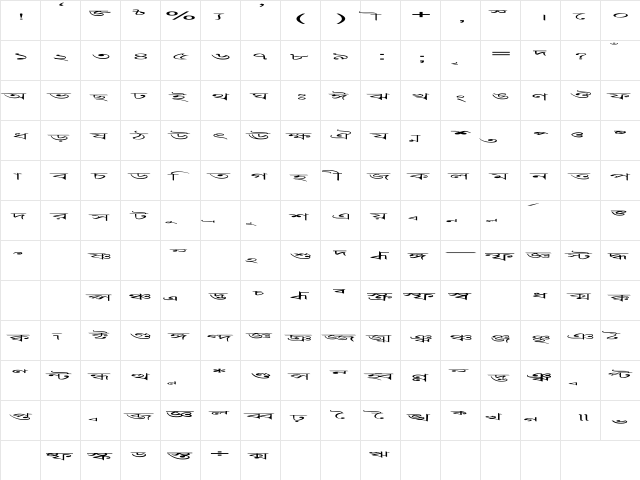
Progoty Scale Regular
Design Context for Progoty Scale Typeface
Progoty Scale takes a measured approach to typography — its balanced proportions and neutral character make it a reliable workhorse for both digital and print work.